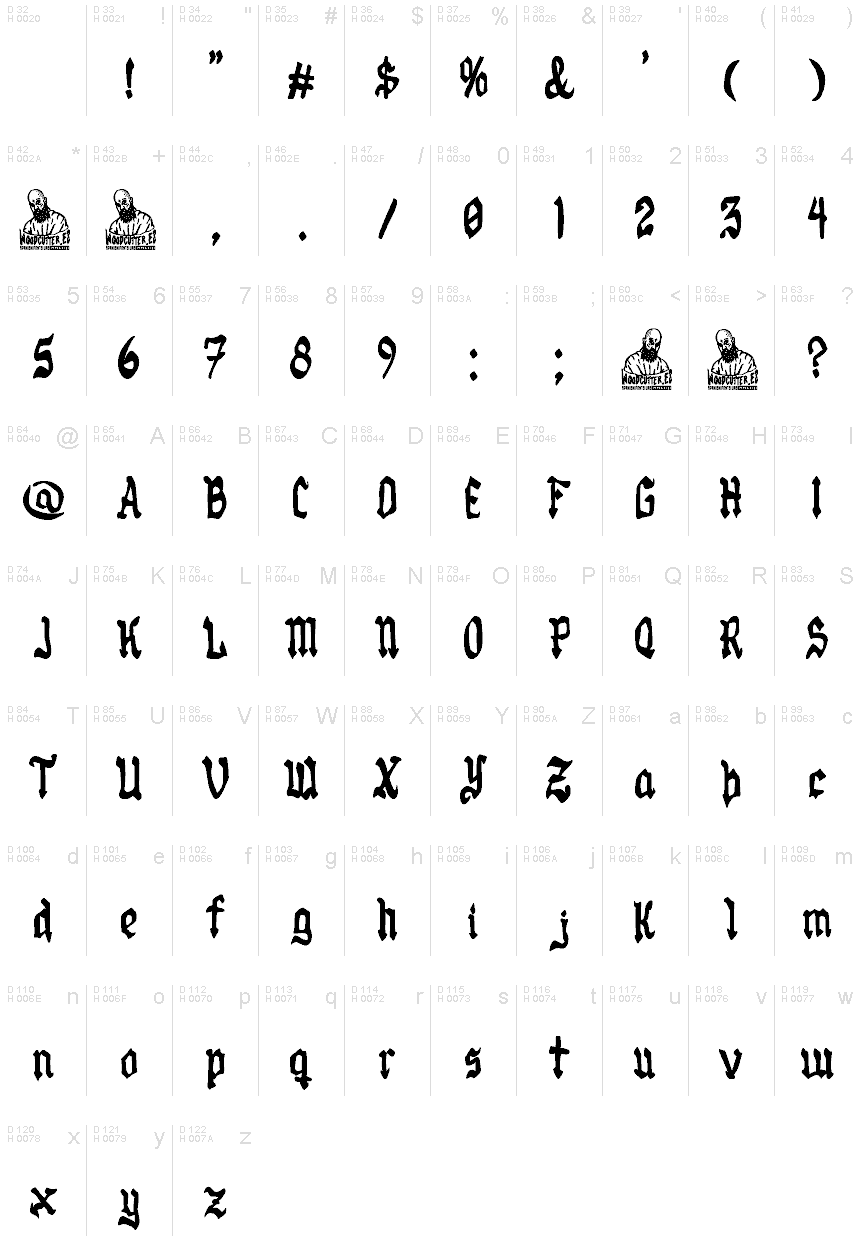
Seville Old Gothic
Seville Old Gothic font is a Woodcutter-designed highly contrasted, condensed Gothic font. With its sharp corners, seemingly wide X-height, and various negative spaces, the display typeface contains everything it takes for creating outstanding designs quickly. Every character from Seville Old Gothic is capitalized accordingly to make a bigger impact which should often be the plan with this font.
This free Gothic font suits branding and packaging purposes in areas of business or entertainment. It can be flashed onto storefronts and shop labels, printed in large formats on posters and banners, or used in other publication covers such as magazines and books familiar to us daily.